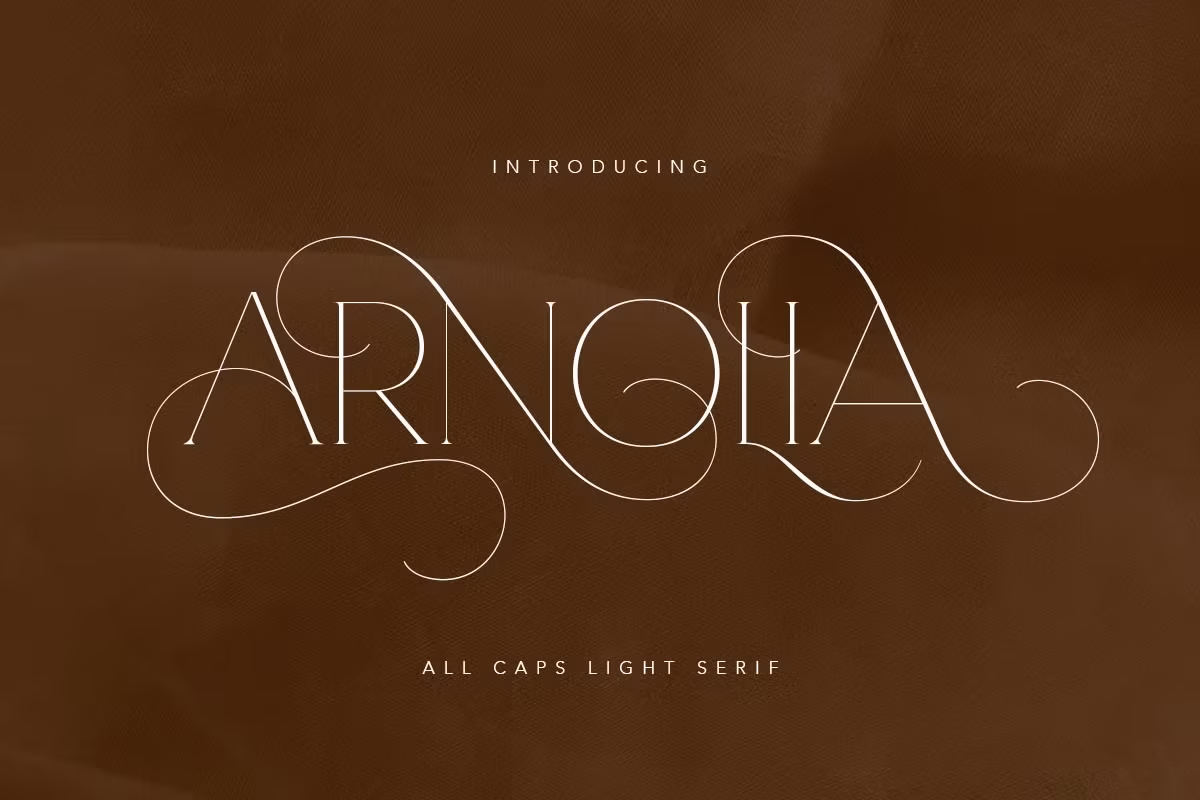
The Arnolia - All Caps Light Serif Font Free Download is an elegant and refined serif typeface designed with clean lines and an all-caps style. Perfect for branding, editorial design, posters, luxury product packaging, and web design, this font brings a sophisticated and contemporary look to your projects.
With its delicate, light strokes and sharp serifs, Arnolia is ideal for high-end designs where readability and style are both important. It includes uppercase letters, numbers, punctuation, and multilingual support, making it versatile for a wide range of applications.